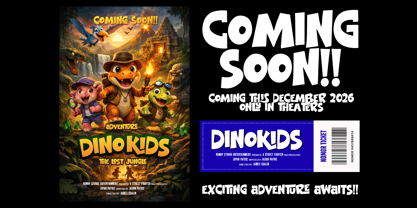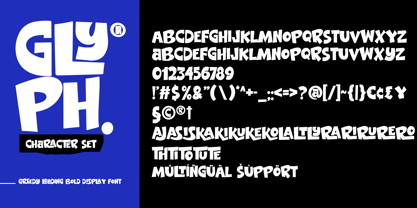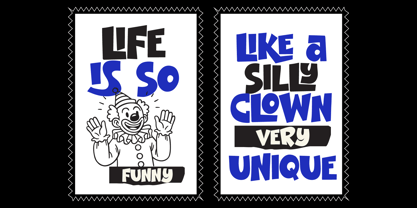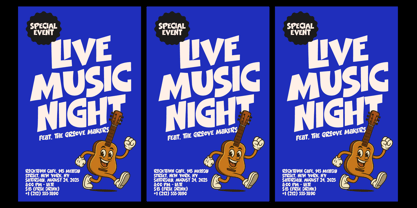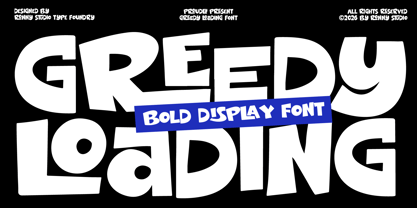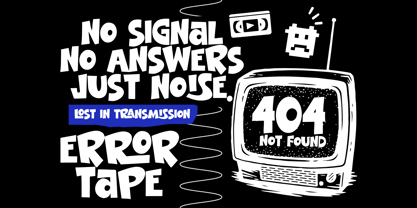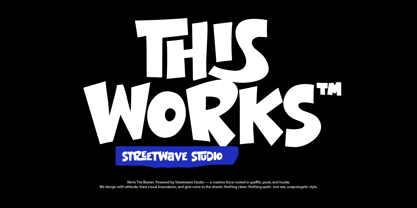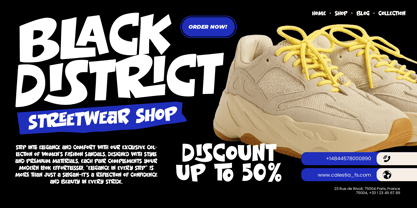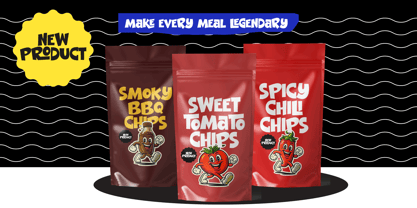
Greedy Louding
The Greedy Louding Font Family was designed by Rony Rizki Jaya and published by Ronny Studio. Greedy Louding contains 1 styles. More about this family
Greedy Loading is a bold display font with a chunky, playful, and energetic style. Designed to grab attention instantly, this font brings a fun yet strong personality to any design. Its thick and expressive letterforms create a modern street and retro-inspired feel, making it highly versatile for creative projects. Font Features: * Bold display style * Playful and expressive letterforms * Uppercase & lowercase * Numbers & punctuation * Alternate & Ligature * Multilingual support Perfect For: * Posters, flyers, and event promotions * Branding and logo design * Streetwear and merchandise * Food & product packaging * Social media graphics * Retro and playful design projects Make your designs stand out instantly. Download Greedy Loading now and bring strong, fun, and memorable typography to your branding and creative projects.